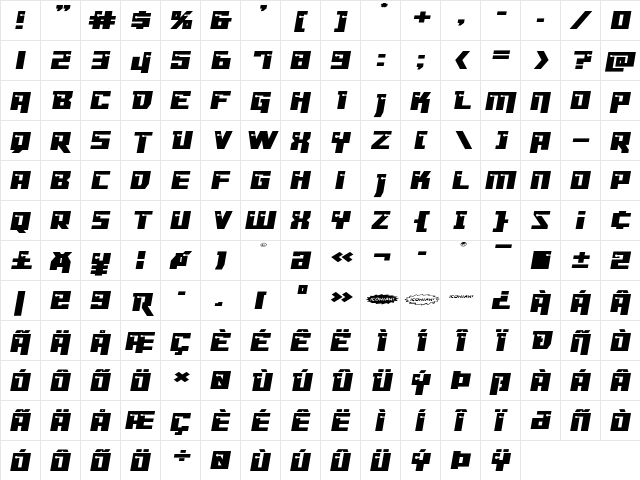
Dangerbot Extra-Expanded Expanded
Design Context for Dangerbot Extra-Expanded Typeface
Dangerbot Extra-Expanded is a composed and adaptable typeface that performs quietly and consistently across a wide range of design contexts.